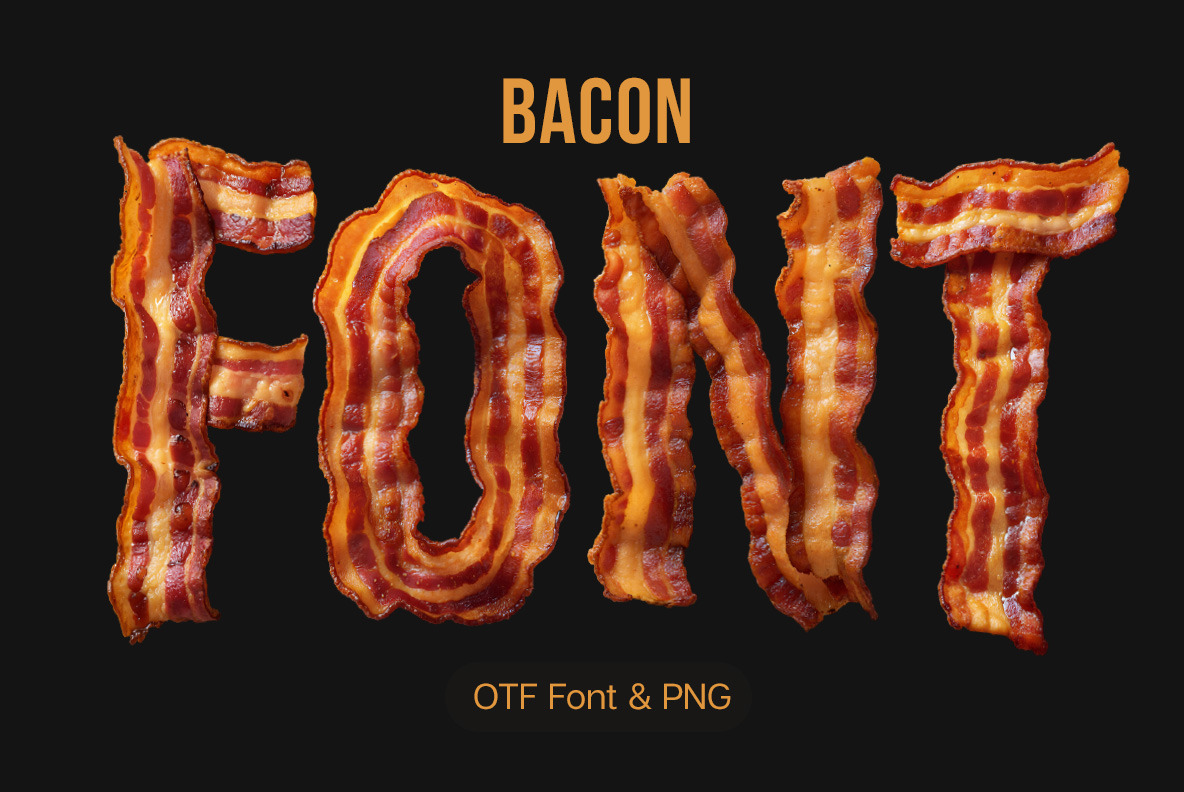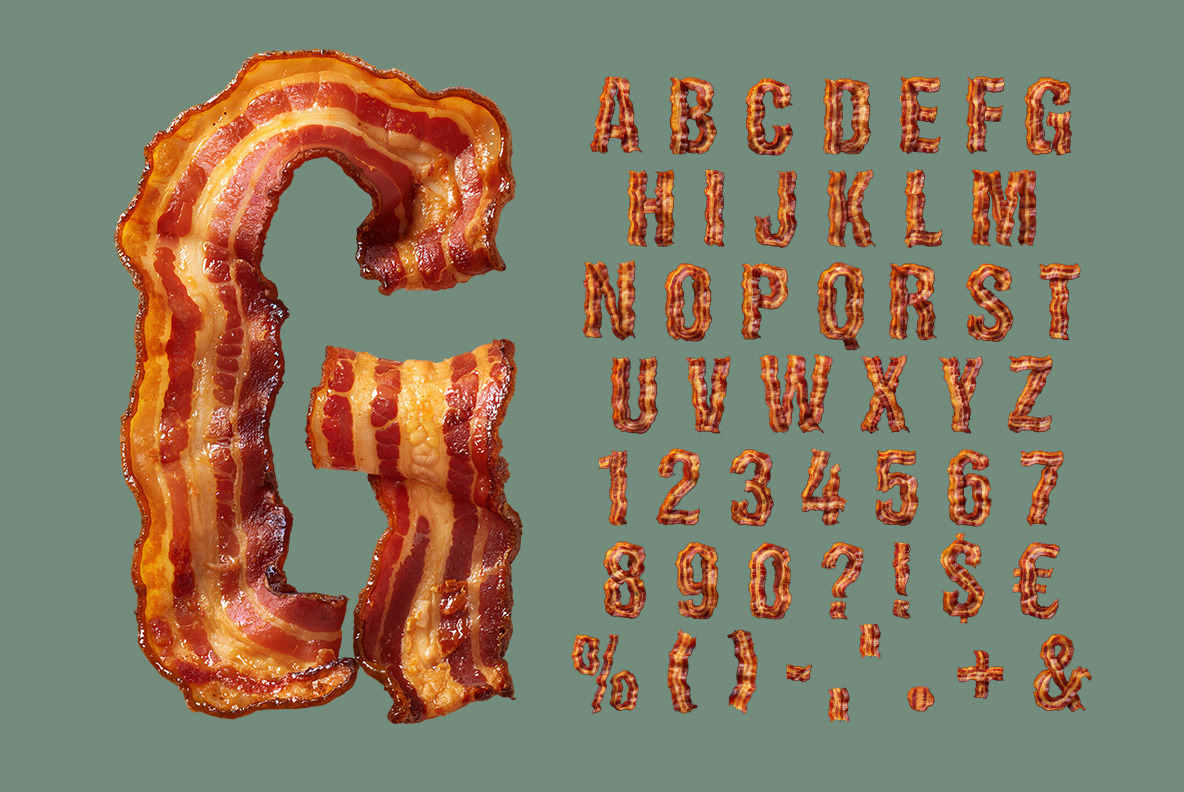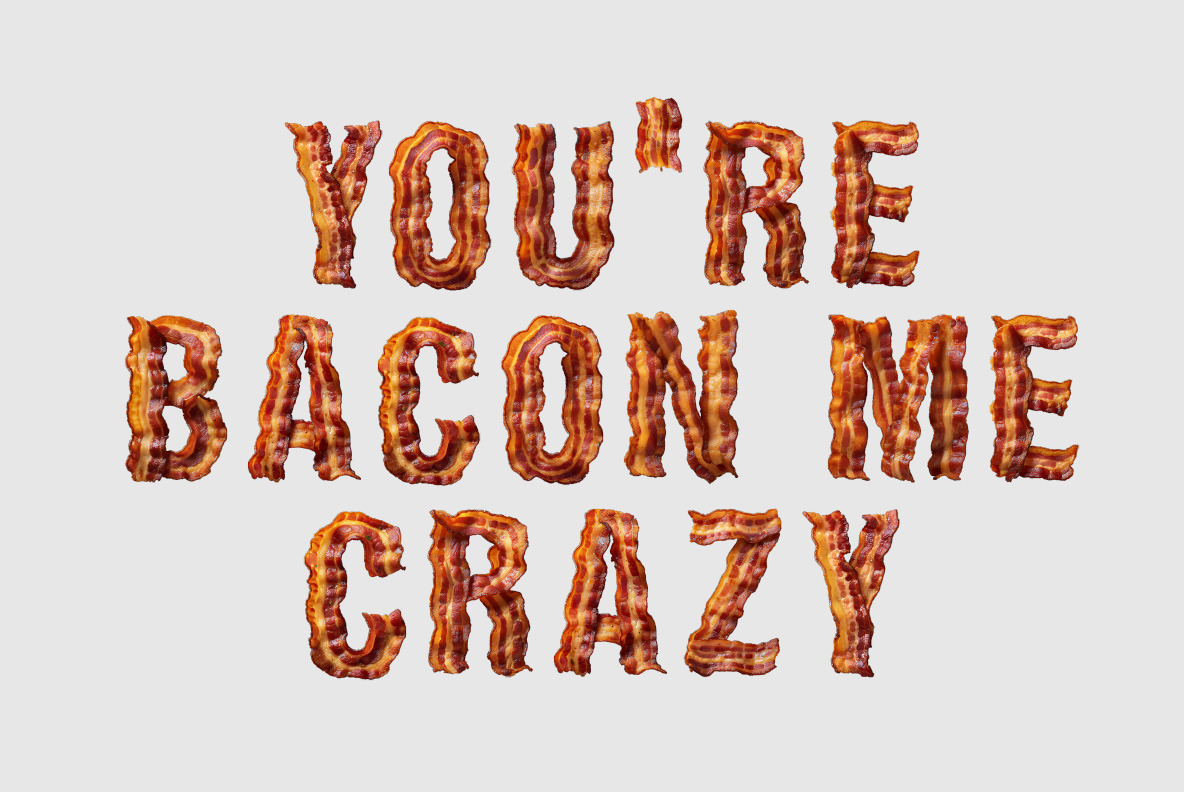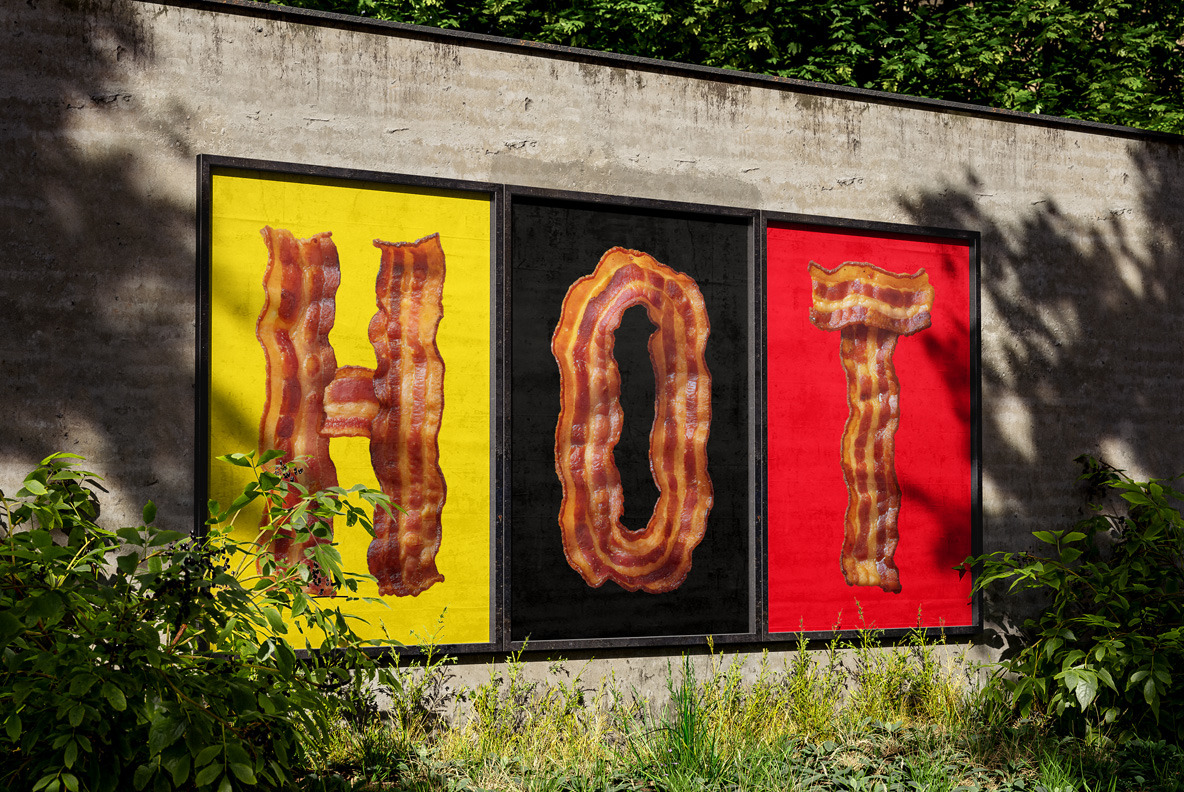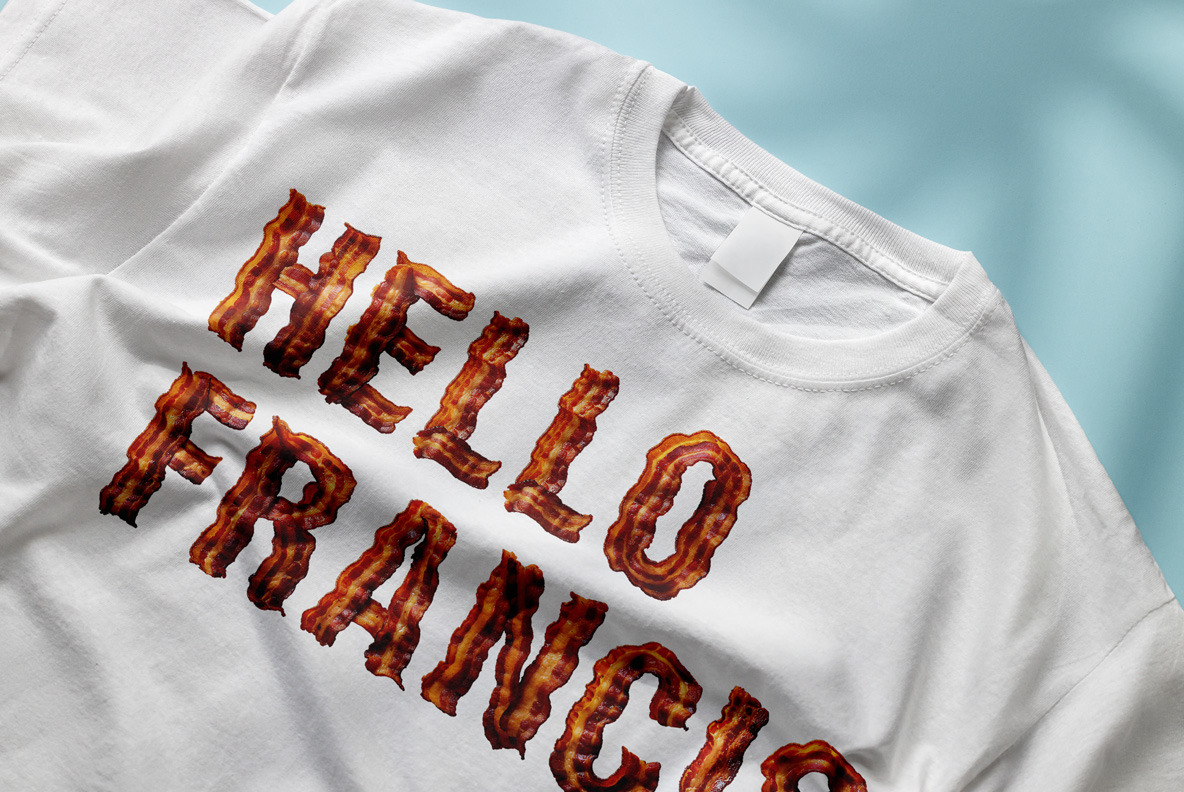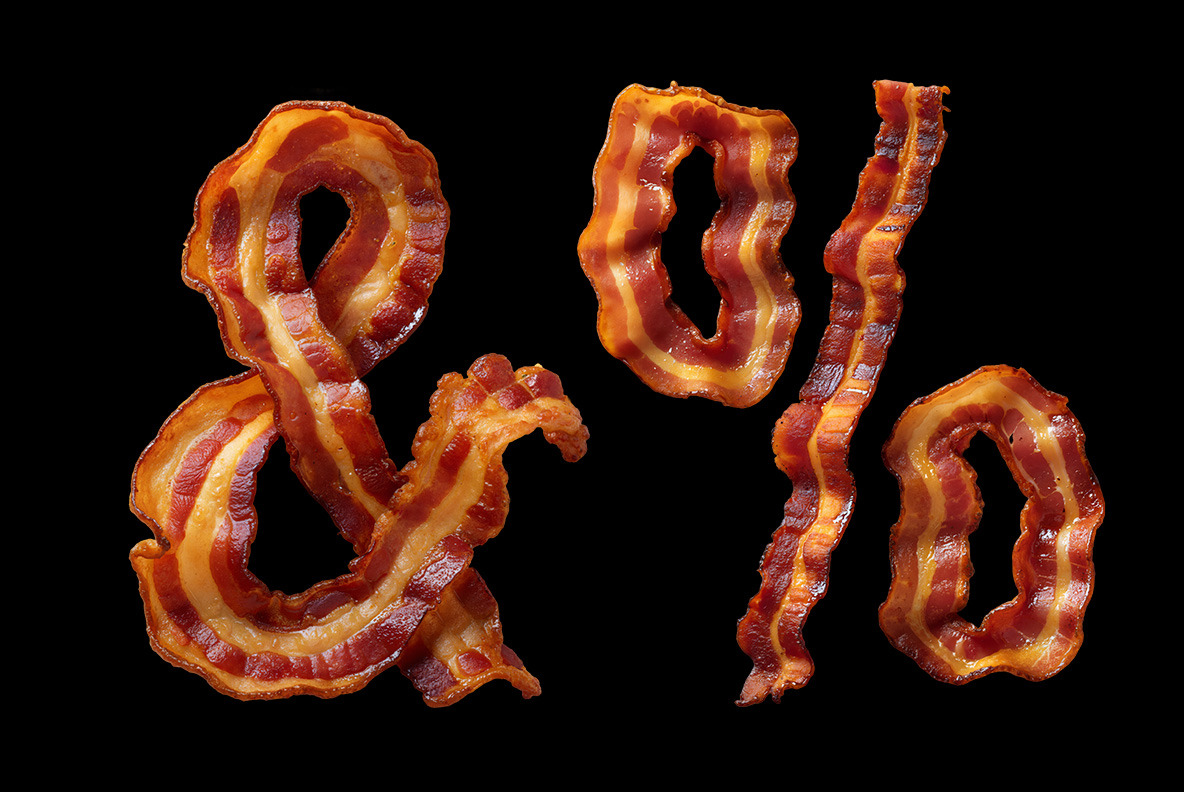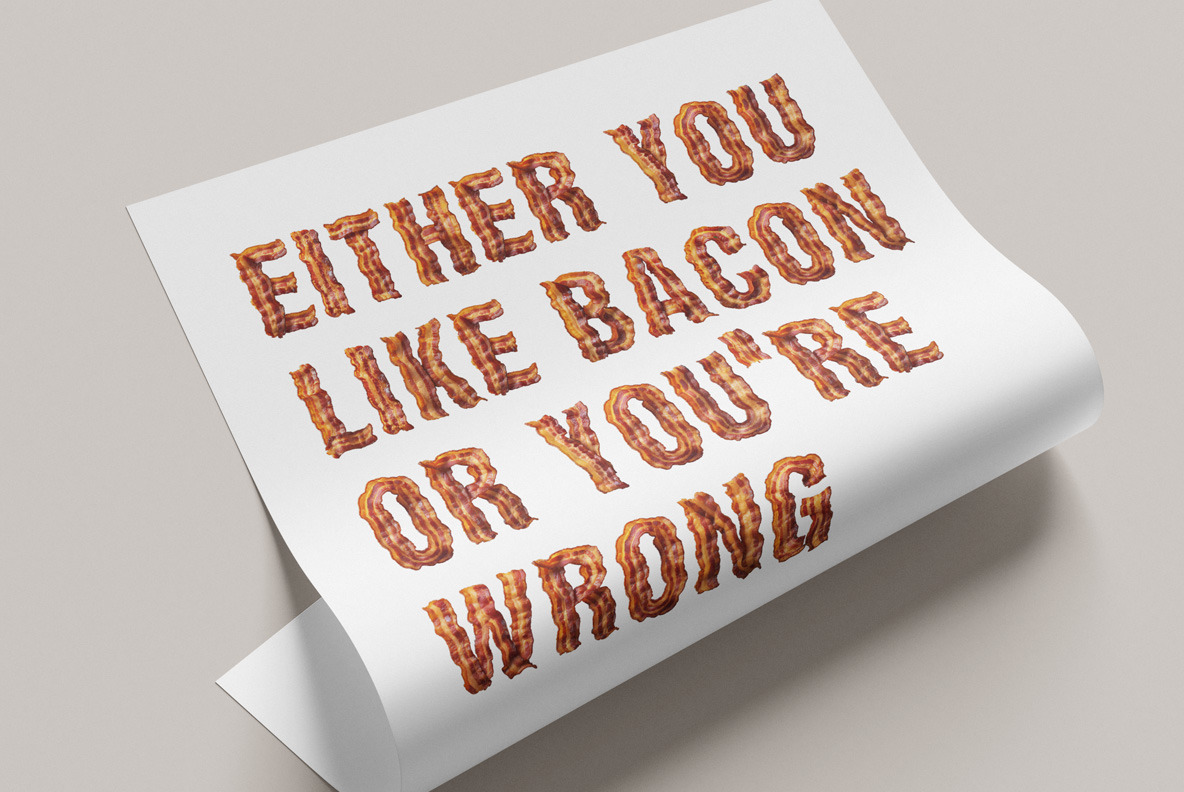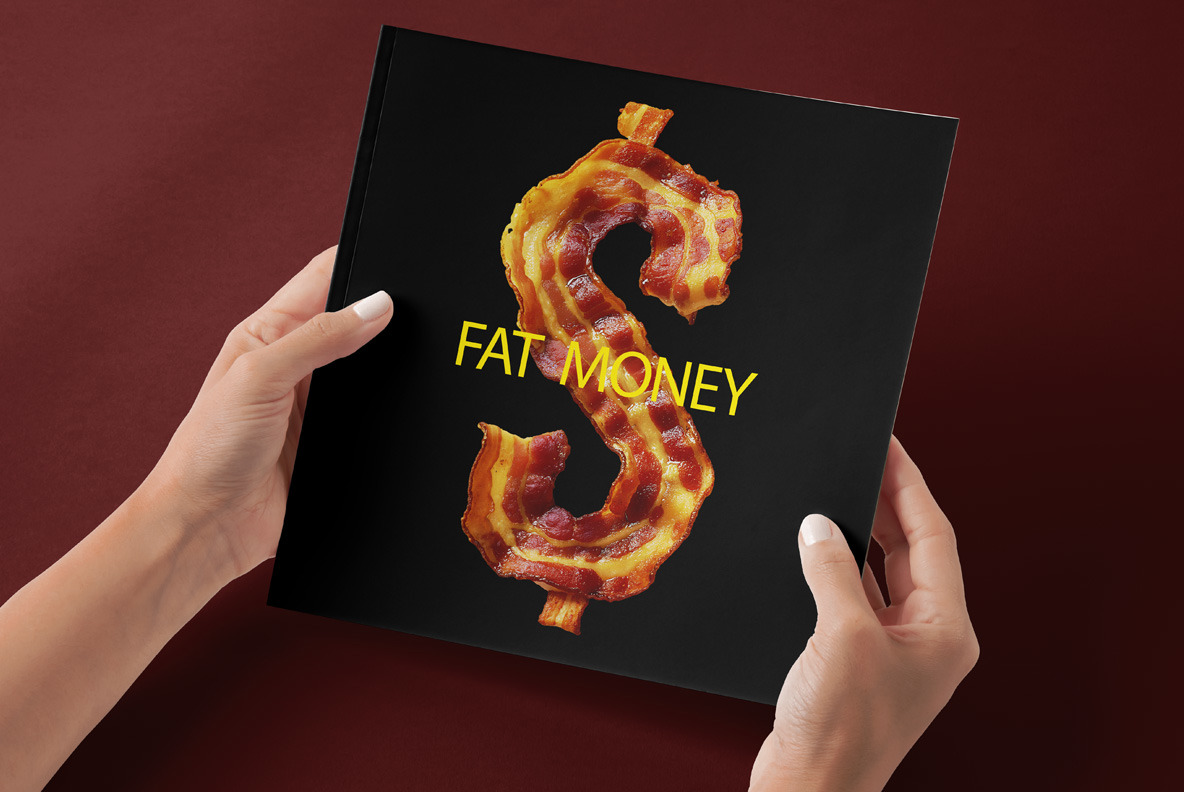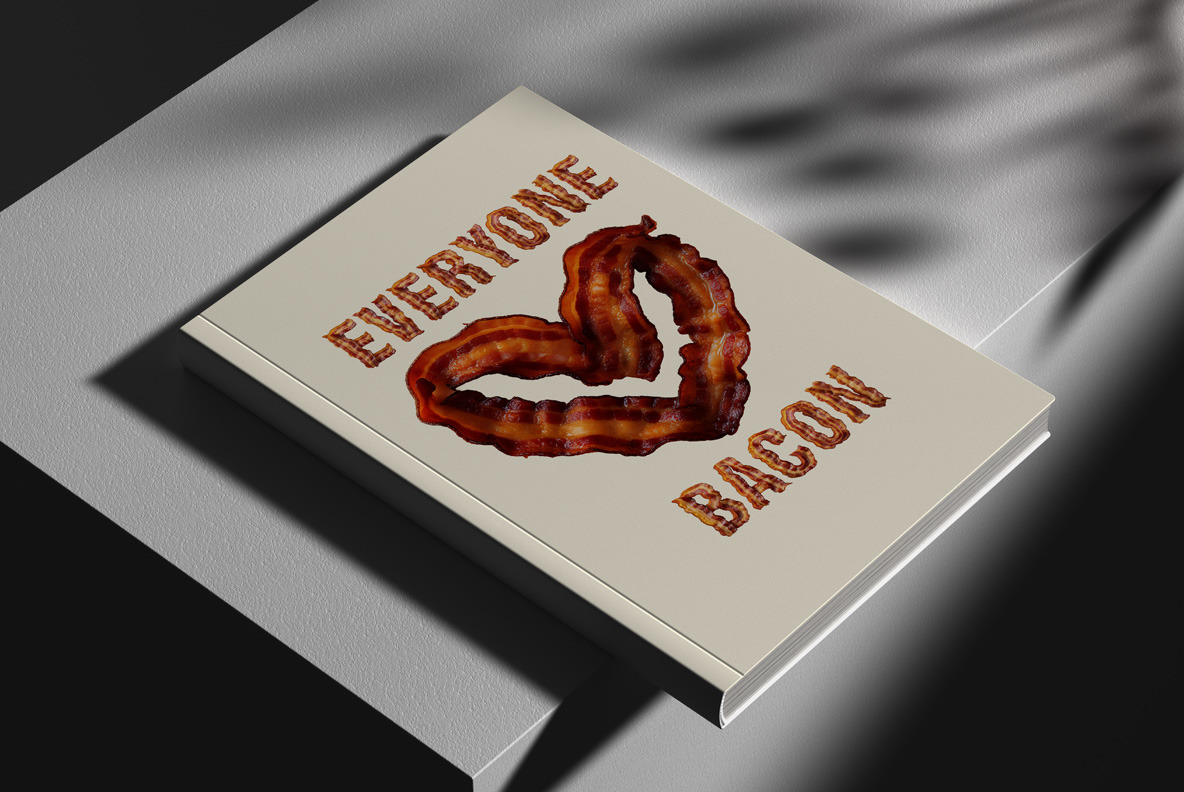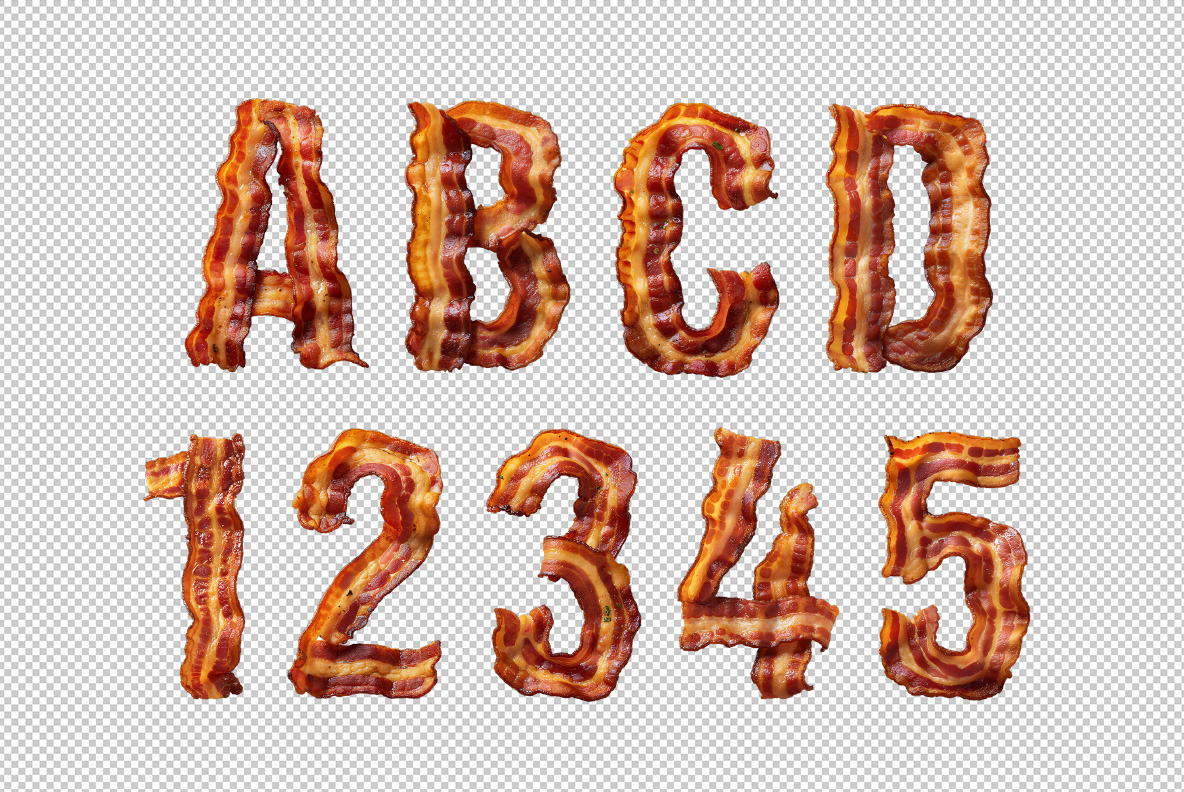
Bacon Font
Bacon Font sizzles with style! Each letter is crafted to look like crispy, fried bacon, with its deliciously curved edges and savory fat details. Perfect for food lovers, bold designs, or quirky projects that need a tasty twist, Bacon Font brings a mouthwatering vibe that’s sure to catch attention and make your design pop!
A high definition OpenType Font. Contains uppercase characters, numerals and basic punctuation. (Draw height roughly 800 pixels). All letters and glyphs that comprises this font you can see on the preview.
Others : ! ? - . ' $ € % &